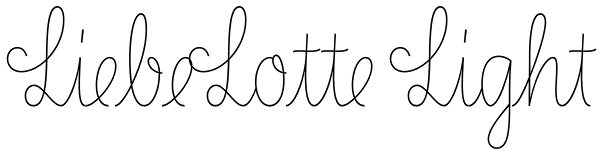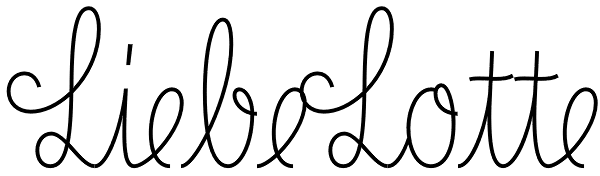
LiebeLotte
Forget that hipster coolness for a minute and design something cute and charming with LiebeLotte! Go ahead and make beautiful things with her: birthday cards, wedding invitations, love letters, new signage for your deli—so many things look sweeter...